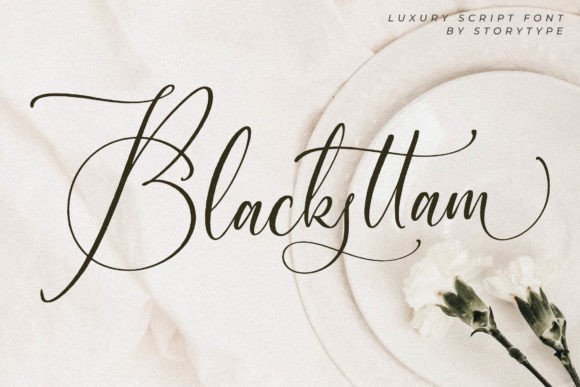
The Elusive Perfect Font: My Encounter with Blacksttam
I’ll never forget the frustration of working on a luxury brand project, searching for that one font that could elevate the design to new heights. The brief was simple: create an elegant logo that exuded sophistication and glamour. I scoured the internet, tried countless fonts, but nothing seemed to fit the bill. That was until I stumbled upon Blacksttam, a luxurious script font that changed the game. In this article, I’ll share my experience with Blacksttam, its features, and how to make the most of this stunning typeface.
An Honest Review of Blacksttam
What I Love About Blacksttam
• ✨ Unique and modern script style that stands out from the crowd
• ✅ Elegant and luxurious feel, perfect for high-end brands and designs
• 💫 Highly versatile, suitable for logos, titles, quotes, and more
• 🎨 Beautifully crafted, with attention to detail and a clear focus on aesthetics
While Blacksttam is an exceptional font, it’s not without its quirks. ⚠️ Some users may find the font a bit challenging to read at smaller sizes, which is common with script fonts. Additionally, the font’s uniqueness might not make it the best fit for body text or lengthy content.
Exploring Alternatives to Blacksttam
While Blacksttam is a stunning font, you may want to explore other options or pair it with complementary typefaces. Here are a few alternatives:
• Pacifico: A beautiful, elegant script font with a relaxed feel, perfect for lifestyle and wellness brands.
• Playfair Display: A luxurious, high-end serif font ideal for headlines and titles, great for pairing with Blacksttam.
• Great Vibes: A fun, modern script font with a friendly tone, suitable for creative and youthful designs.
• Lobster: A classic, elegant script font with a sophisticated feel, great for formal and luxury designs.
The Story Behind Blackststam
Blackststam was crafted with the intention of creating a unique, luxurious script font that would cater to the needs of designers seeking something fresh and modern. The designer aimed to blend classic elegance with contemporary flair, making Blackststam a versatile typeface suitable for a wide range of applications.
Q: What makes Blackststam suitable for luxury brands?
A: Blackststam’s unique script style, elegant feel, and modern look make it an excellent choice for luxury brands seeking to establish a sophisticated visual identity.
Q: Can I use Blackststam for body text?
A: While Blackststam is beautiful, it’s primarily designed for headlines and titles. Its uniqueness and script style might make it challenging to read for longer body text.
Q: Does Blackststam support OpenType features?
A: Yes, Blackststam supports various OpenType features, including swashes, ligatures, and stylistic alternates, allowing for greater typographic control and customization.
Q: Is Blackststam suitable for digital and print designs?
A: Absolutely! Blackststam’s versatility makes it suitable for both digital and print designs, from social media graphics to luxury brand packaging.